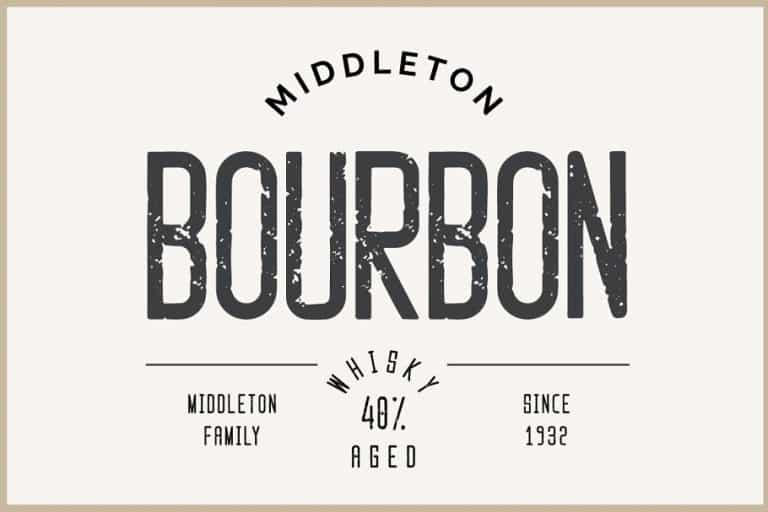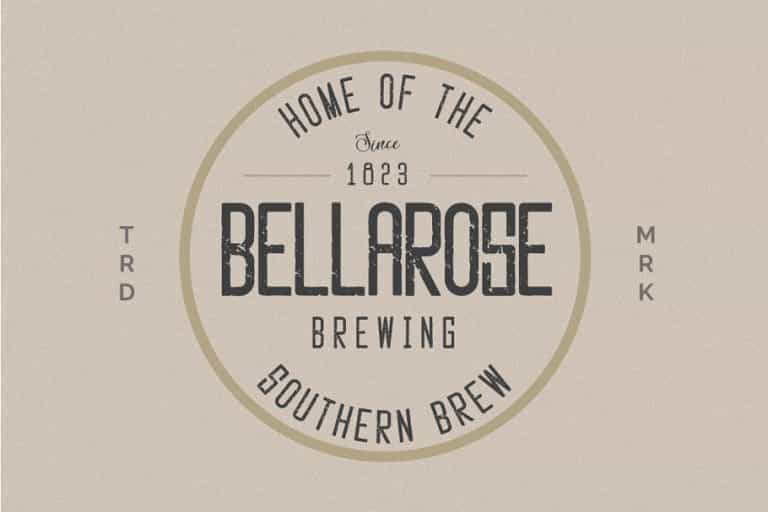
Introducing Marisole Font. Marisole Typeface is a condensed sans serif textured font. Every letter has a distinct texture and is bold which makes whisky packaging more rough. This font is a multi-purpose sans serif typeface that provides the retro look. It is a great match for the whisky label, alcohol label, liquor label, cosmetic packaging and many others. It makes you feel the retro way every time you use it.